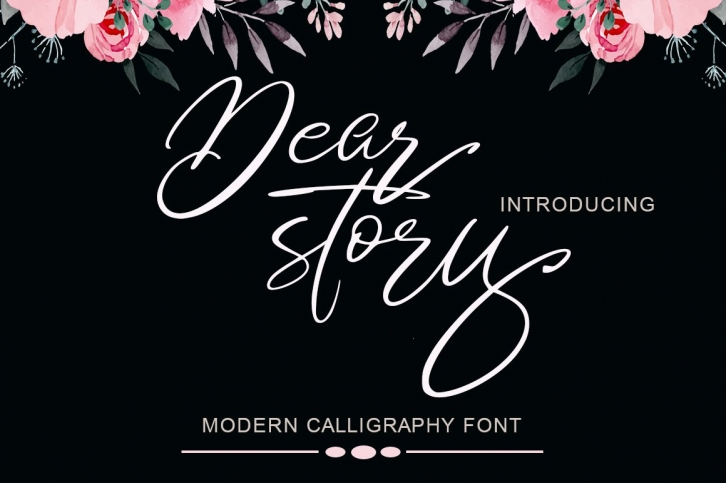
Dear story is a great font that was designed by Stripes Studio. Imagine the amount of combinations you can create using this font! The archive is 9.40 MB and it was released on October 14, 2020. Dear story looks beautiful on wedding invitations, greeting cards, logos, posters, labels, t-shirt designs, logos, business cards and is perfect for use in ink or watercolor works, fashion, magazines, packaging and food menus, children's books and more!